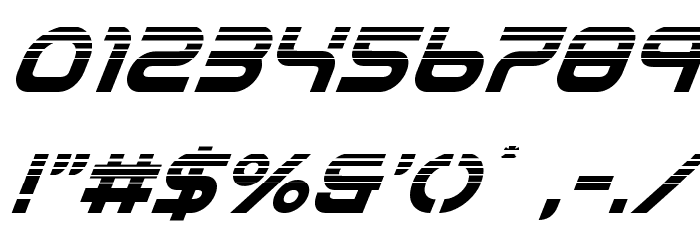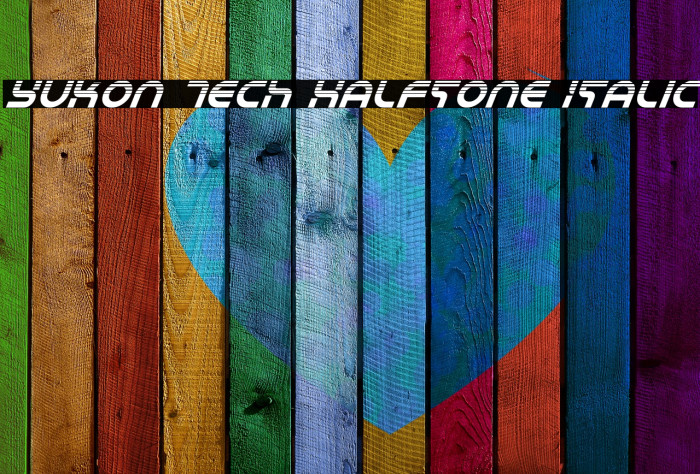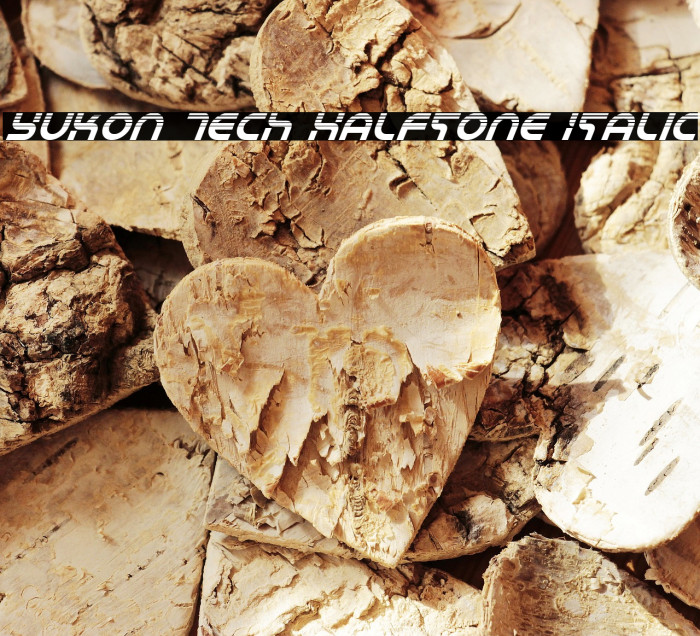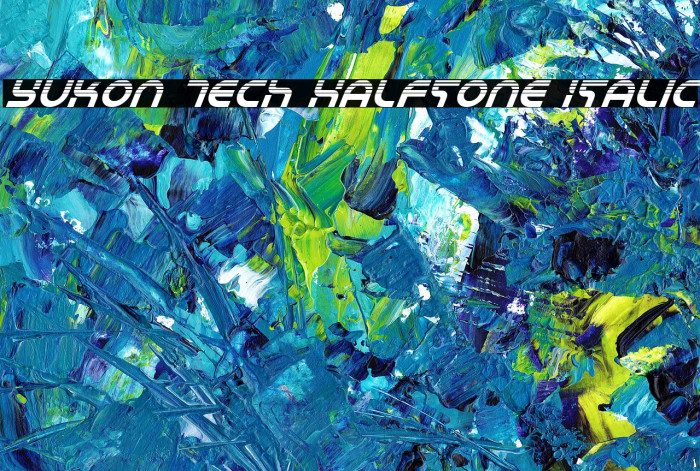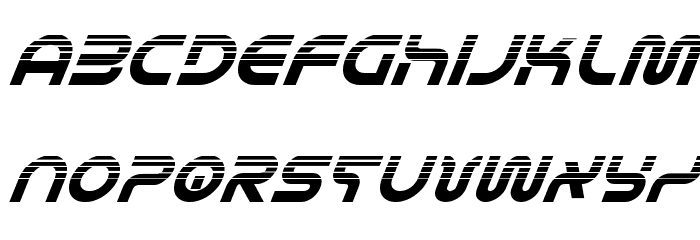
Yukon Tech Halftone Italic Font
Yukon Tech Halftone Italic Description
This font features a futuristic and dynamic design with a halftone effect that gives it a unique, tech-inspired appearance. The italicized style adds a sense of motion and speed, making it ideal for projects that require a modern and energetic look. The characters are bold and have a distinct geometric structure, with horizontal lines creating a halftone pattern that adds depth and texture. This font is perfect for digital and print media where a contemporary and innovative style is desired.
| Proposed Projects | Ideal for technology branding, video game titles, sci-fi movie posters, and digital artwork. |